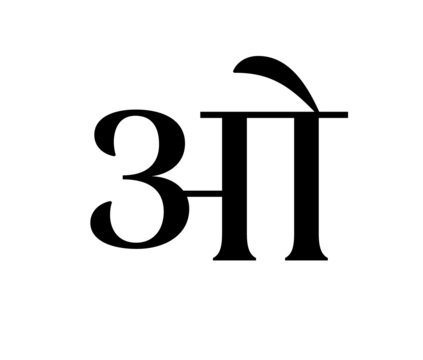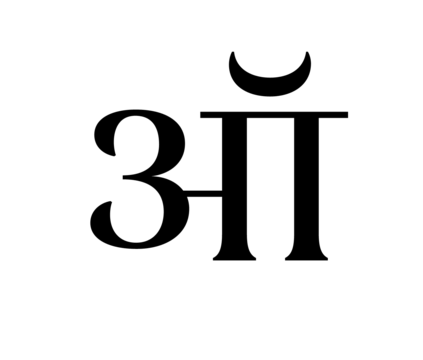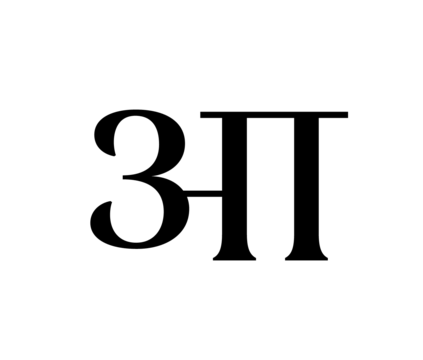
Begum Devanagari is a serif typeface brimming with contrast. Latinized by design, all of its vertical strokes feature serifs. Despite the tradition in Indian display typography of using Indic letters with seriffed strokes, no typeface before Begum Devanagari had been designed from scratch that included stylistically-matching seriffed letters for both Devanagari and Latin. This benefit for campaigns or publications operating in multiple languages simultaneously gives the typeface a leg-up in terms of effectiveness. True to form, Begum Devanagari was developed for Editorial Designers, who now work in a throughly multi-media environment. Begum Devanagari offers possibilities for all kinds of shorter-length texts, whether in-print or on-screen.
| Family Name | Begum Devanagari |
| Designer(s) | Manushi Parikh |
| Classification | Serif, Display |